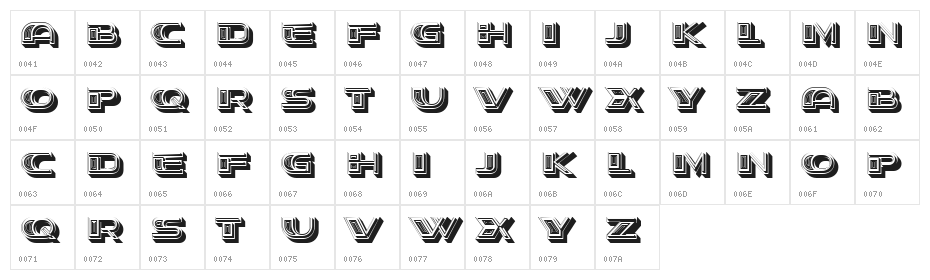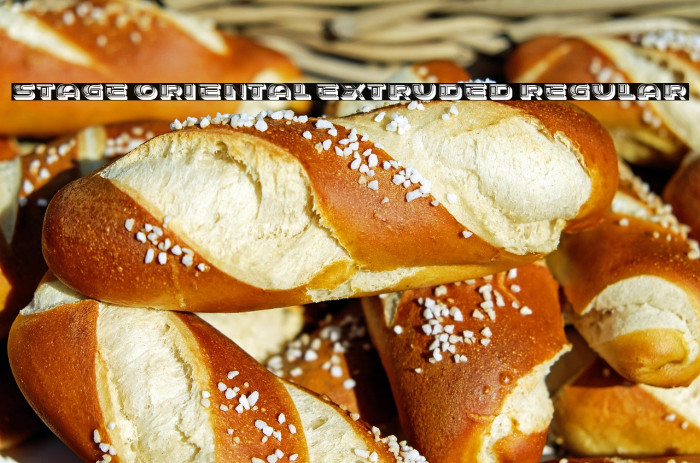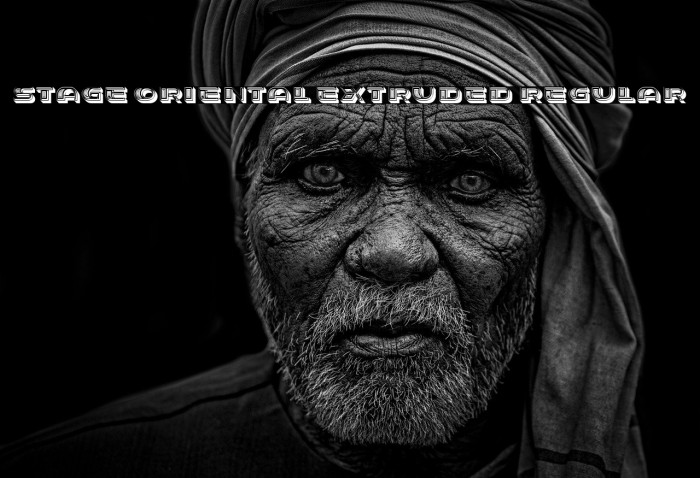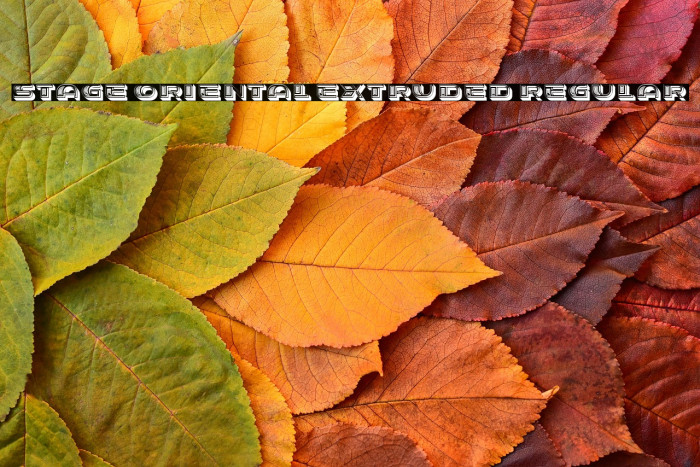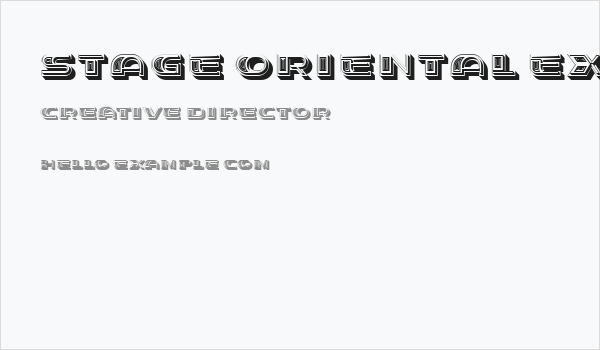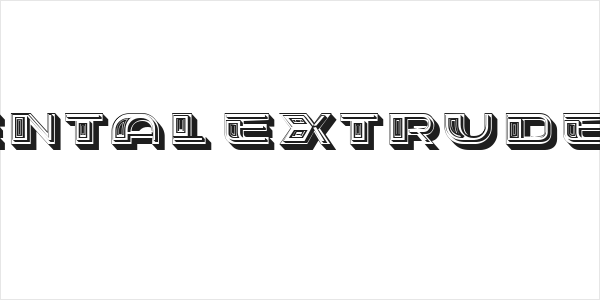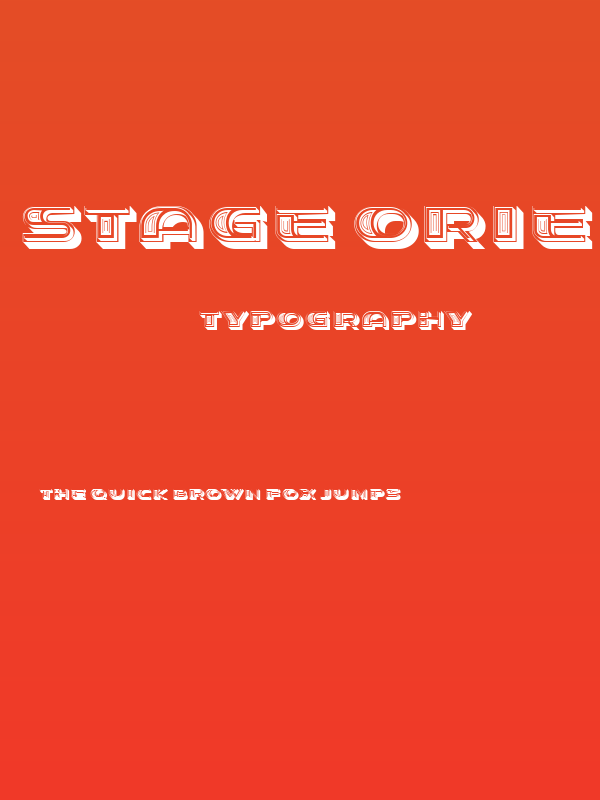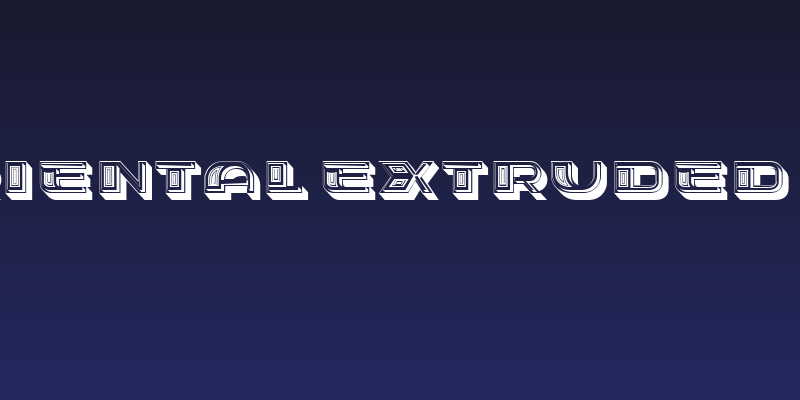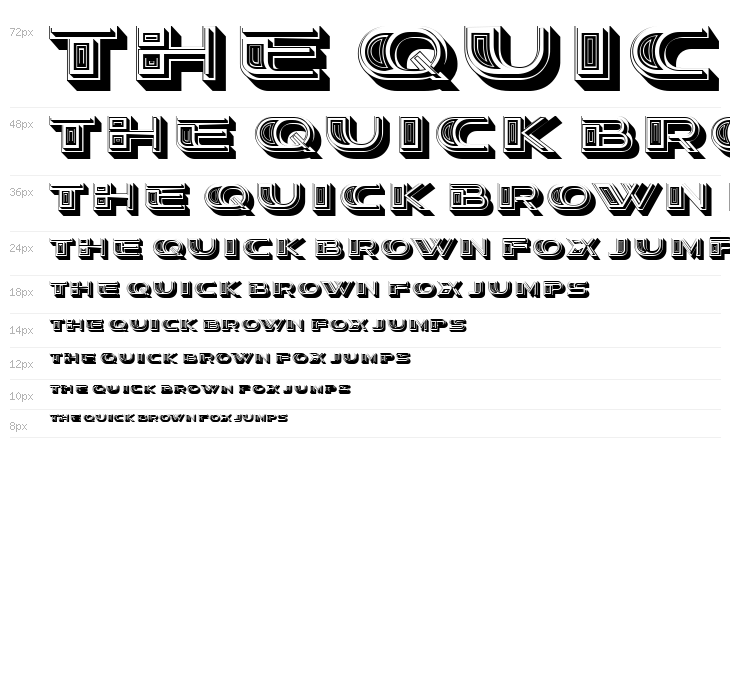
Stage Oriental Extruded Regular Font
Stage Oriental Extruded Regular Description
This font features a bold, extruded style with a distinct three-dimensional effect. The characters are designed with a shadowed outline that gives them depth and a sense of movement. The strokes are thick and consistent, creating a strong visual impact. The overall design is geometric, with sharp angles and clean lines, making it suitable for attention-grabbing headlines or titles. The font's unique style is reminiscent of vintage or retro aesthetics, yet it maintains a modern edge through its structured form.
| Overall Style | Vintage, Modern |
| Proposed Projects | Ideal for posters, logos, and branding materials that require a strong visual presence. |